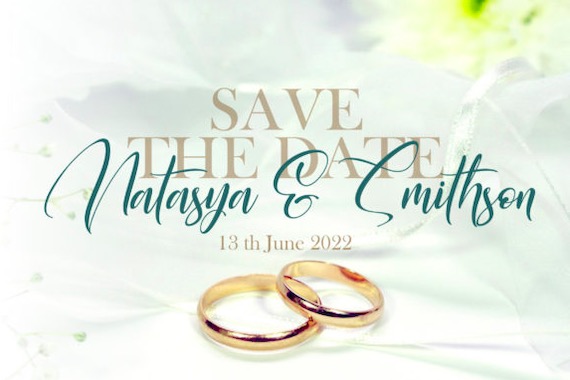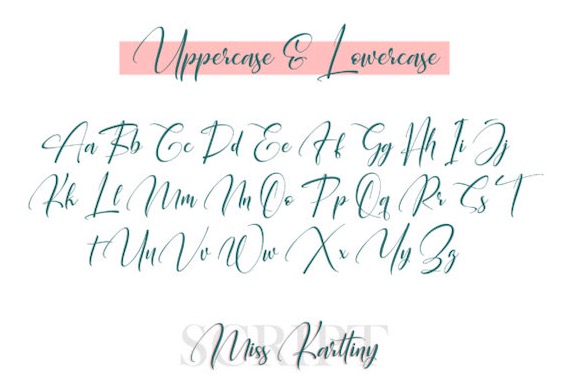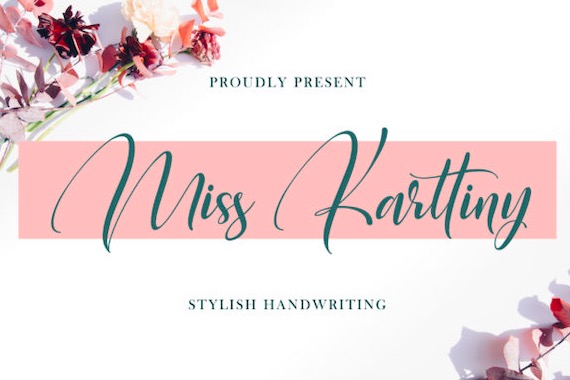
Miss Karttiny Font is a clean and flowing handwritten script typeface. Every character has been carefully crafted to give it a fresh and stylish look. It’s perfect for logotypes, branding, magazines, website or blog headlines, packaging, quotes, invitation cards, greeting cards, business cards, and much more!
Miss Karttiny Handwritten Font